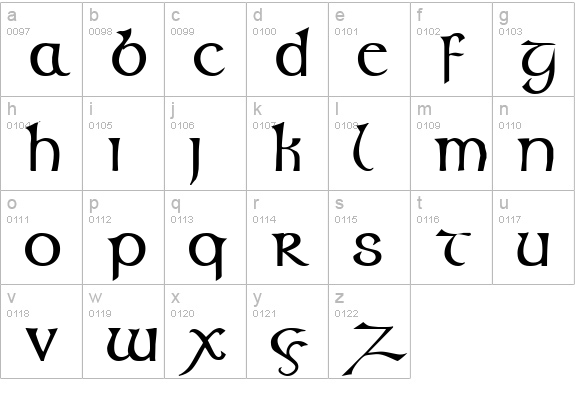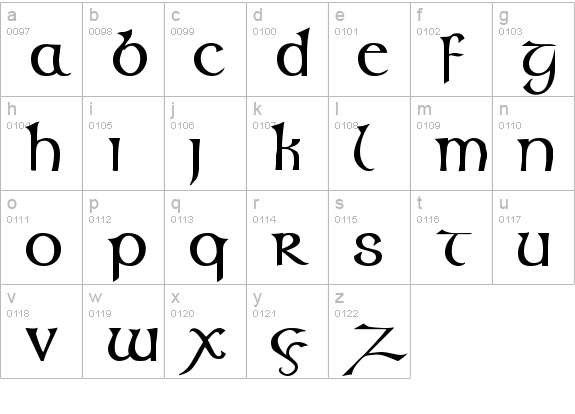
Glendower Font Details
Glendower font is a stunning typeface that exudes elegance and sophistication. With its intricate details and graceful curves, Glendower is perfect for adding a touch of luxury to any design project. Whether used for branding, invitations, or editorial design, this font will elevate your work to new heights. The best part? Glendower font is available for free download at FontsMarket.com. This means you can easily access this beautiful typeface and incorporate it into your projects without any cost. Don't miss out on the opportunity to enhance your designs with the timeless beauty of Glendower font. Download it today and start creating stunning visuals that will leave a lasting impression.